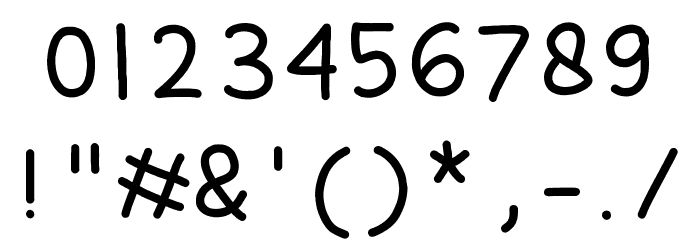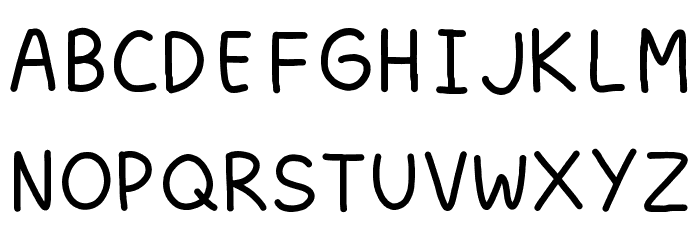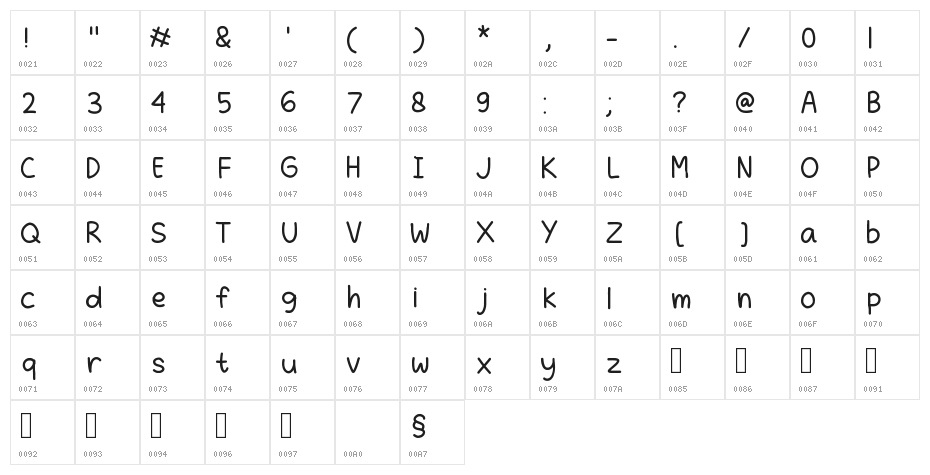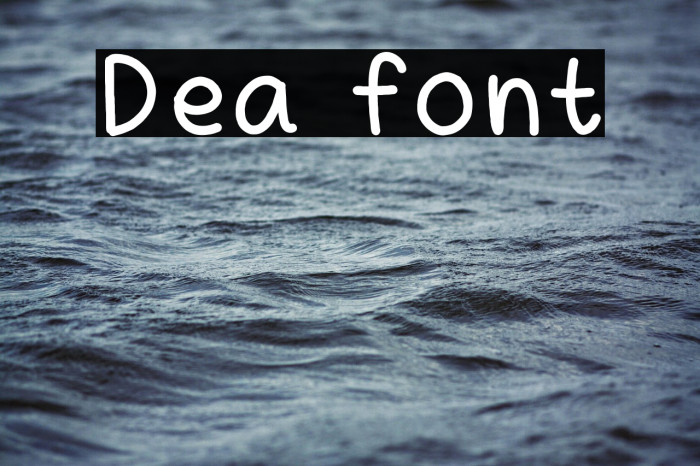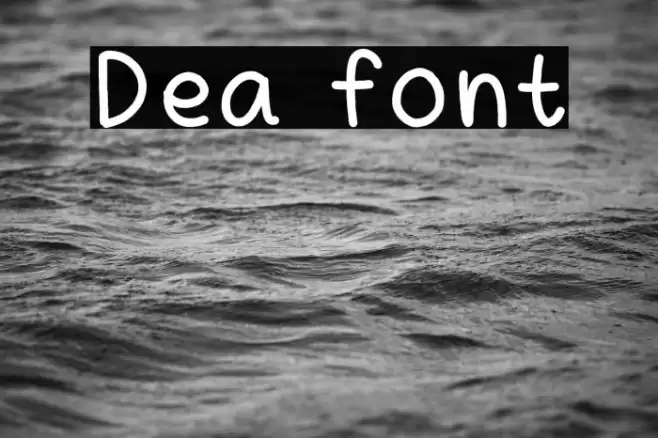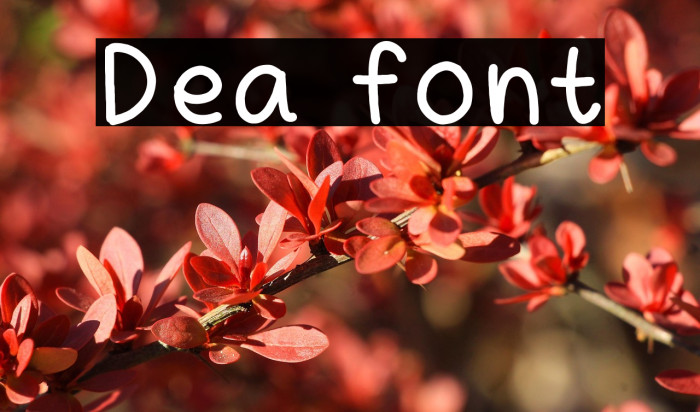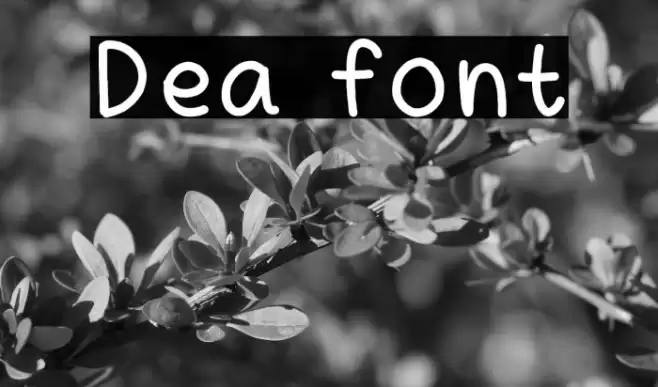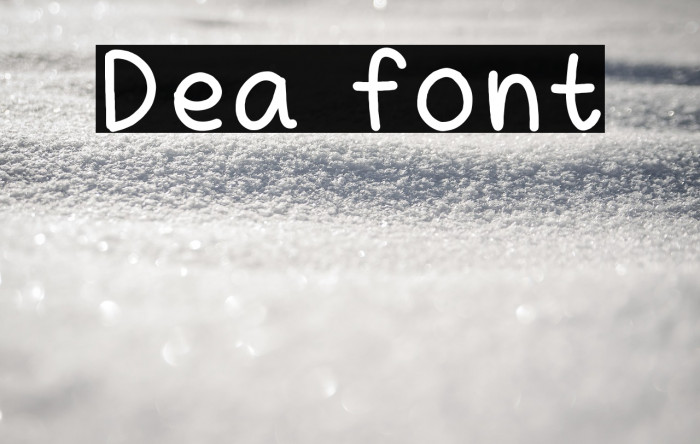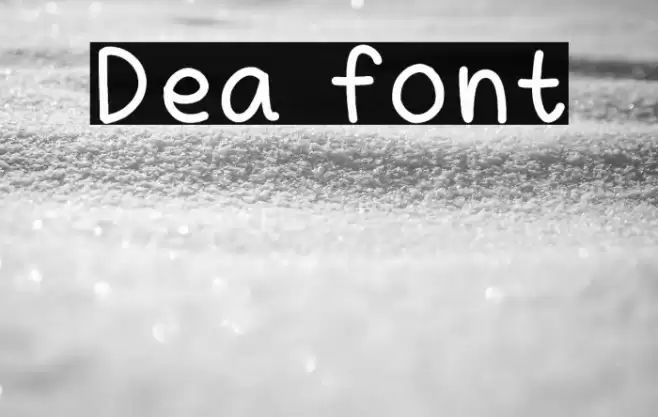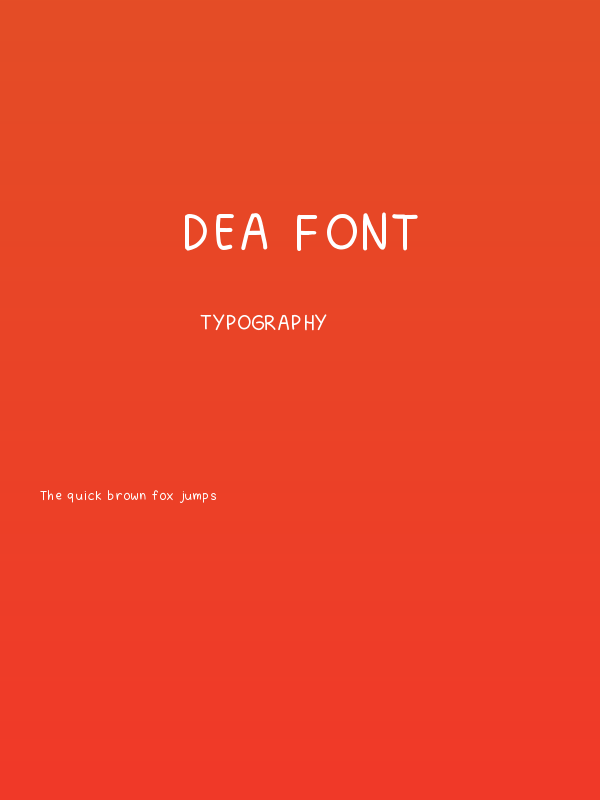
Dea font Font
Dea font Description
A playful, handwritten style font with rounded, informal characters and a casual appearance.
| Overall Style | Casual, Playful, Handwritten |
| Use Case | Children's books, casual branding, educational materials, invitations. |